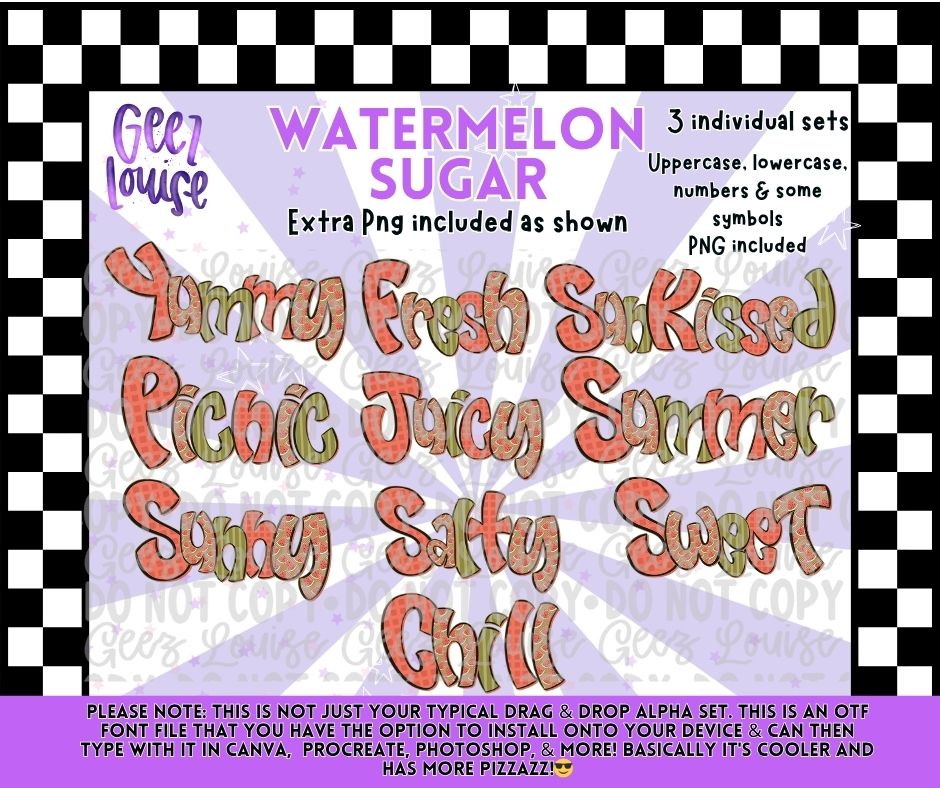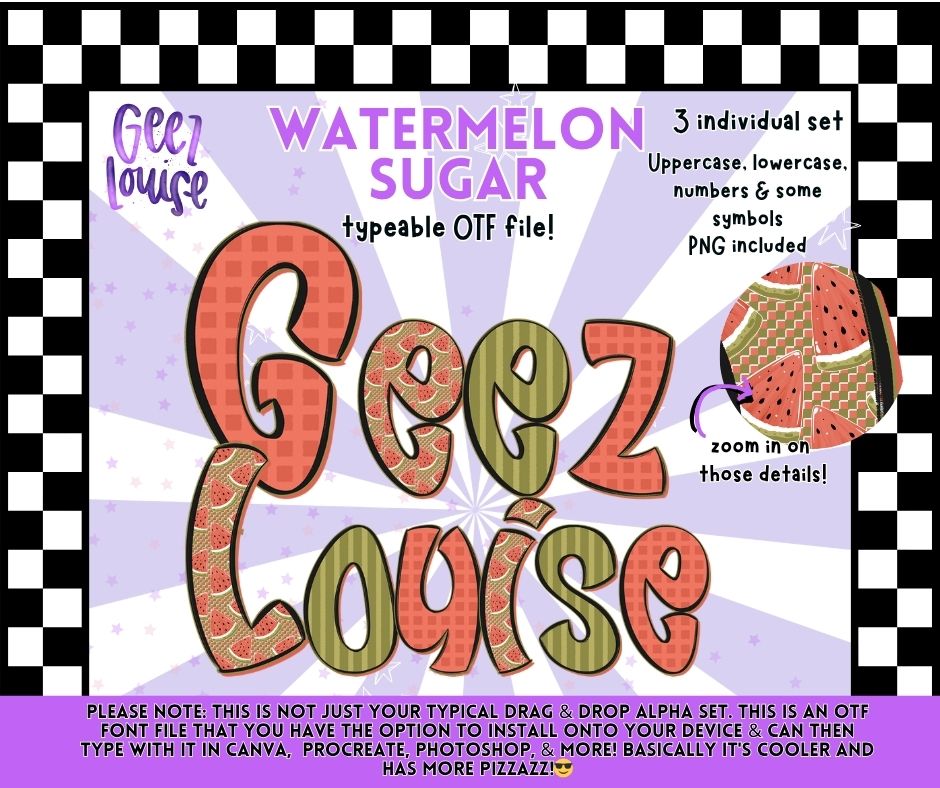
Sweet like summertime 🍉☀️
This Watermelon Sugar Alpha Set is packed with juicy watermelon details, playful patterns, and fun summer vibes that instantly brighten up your designs.
With 3 individual alpha styles included, you’ll have plenty of options for mixing and matching to create standout summer graphics with personality.
This set also includes extra PNG word art as shown, making it even easier to create quick, eye-catching designs.
Perfect for summer tees, boutique graphics, beach vibes, and anything that deserves a little sweetness.
Fresh, fun, and dripping with summer energy 🍉✨